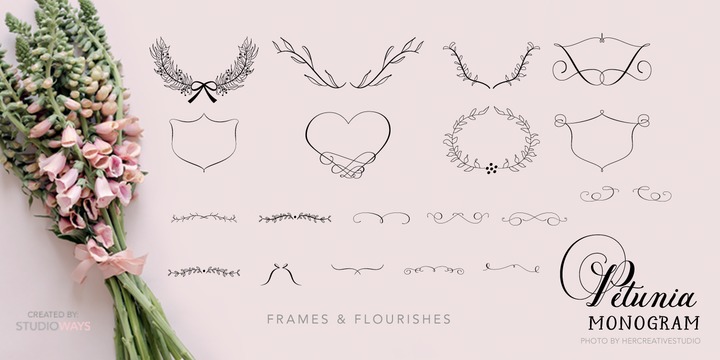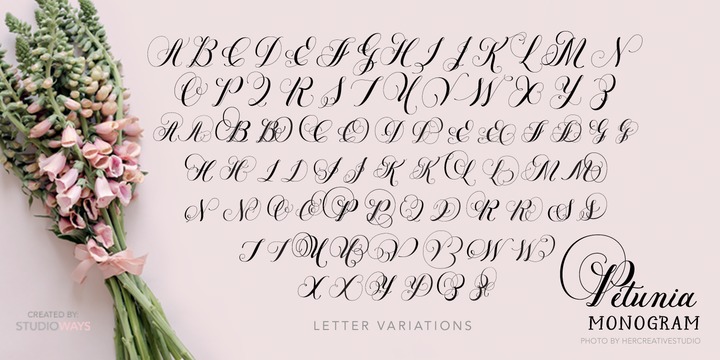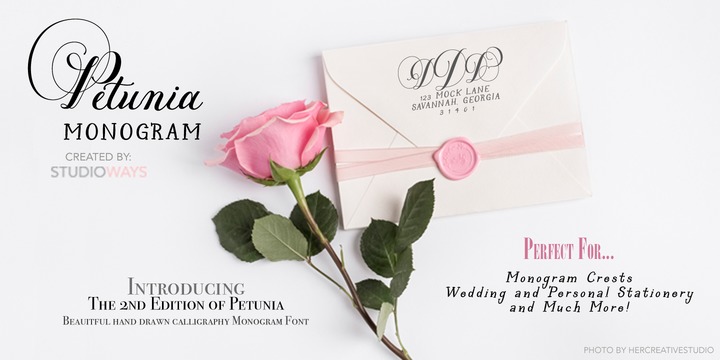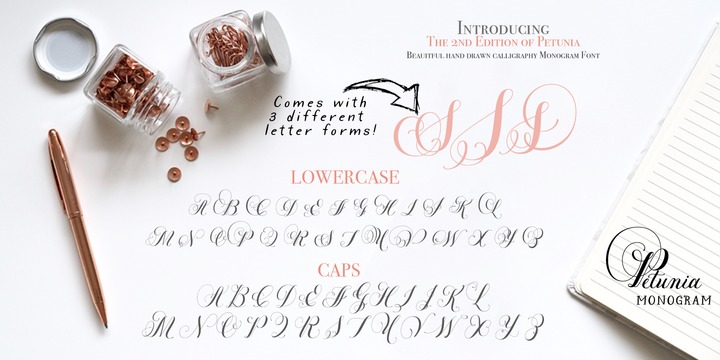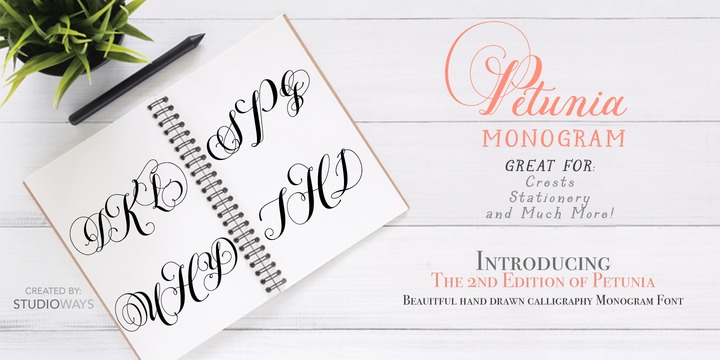
Petunia Monogram is a beautiful extension to Eliza Gwendalyns Petunia font family, originally published by Great Lakes Lettering! The letter forms in this uppercase-only font are angelic and more refined, with sweeping, elegantly thin swashes and flourishes.
Petunia Monogram contains three variations of each uppercase letter, a larger version and two smaller ones, each with different swash flourishes.
With the help of the OpenType ligature feature, you can create beautiful three-letter monograms.
There are also 20 whimsical crest graphics and flourishes that you can use to build single letter crests.
Petunia Monogram is perfect for wedding and personal stationary, invitations, and much more! More See our "How-To" poster to learn how easy it is to make beautiful monograms and initialed crests!